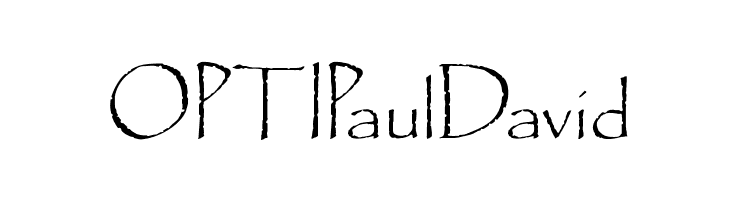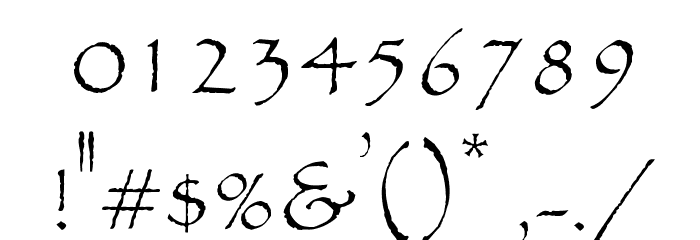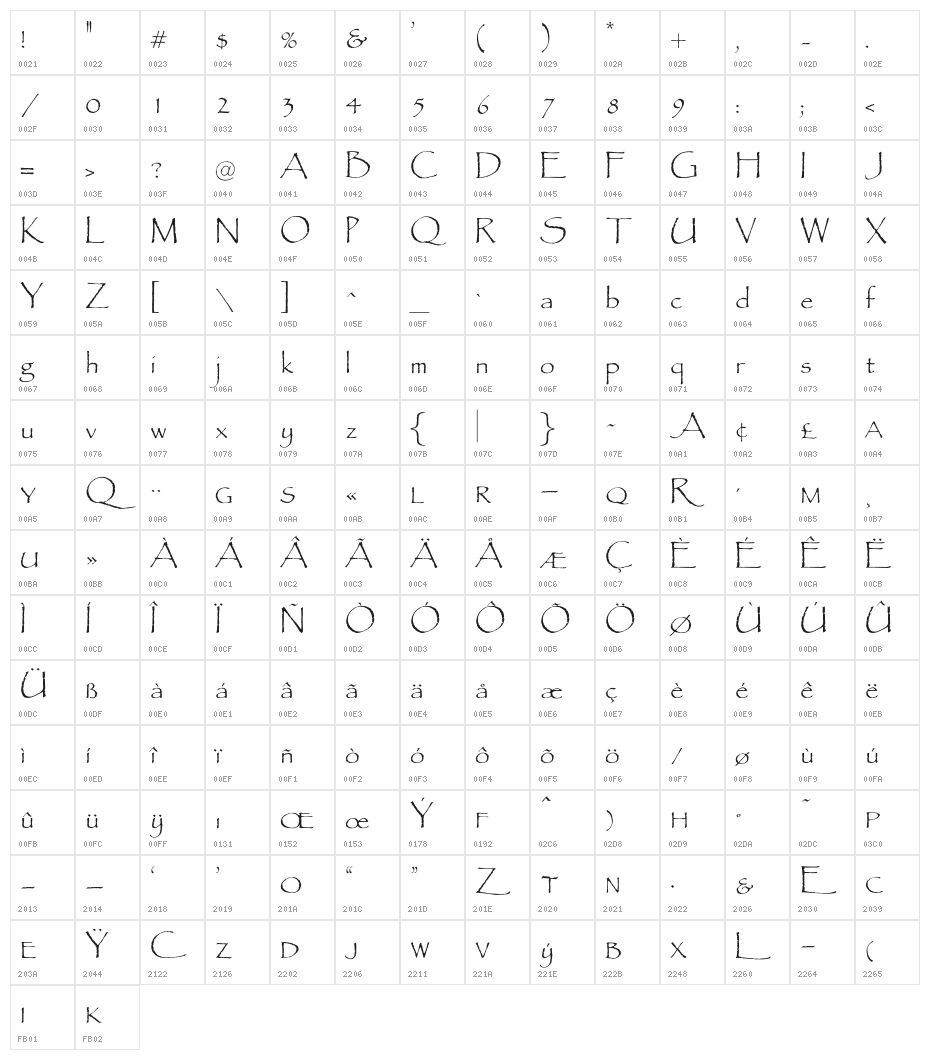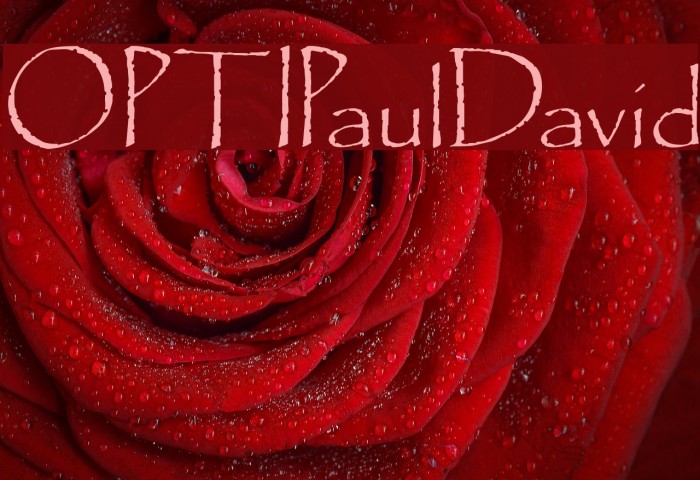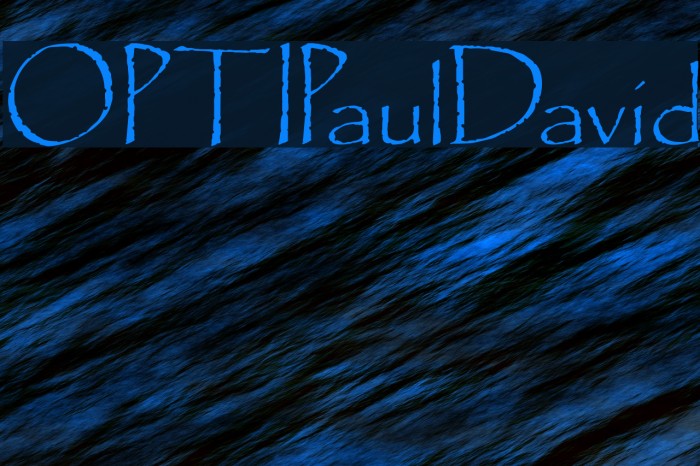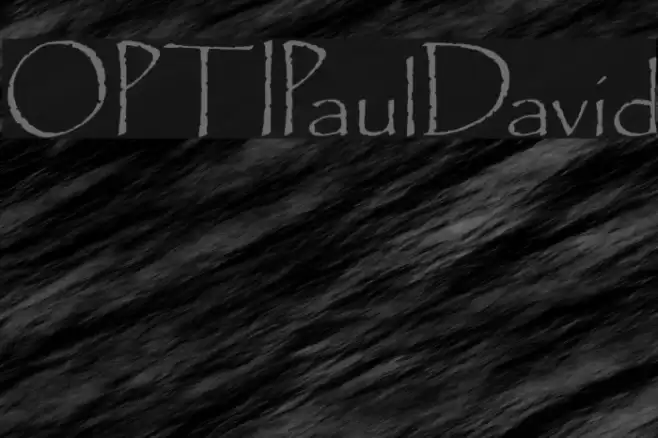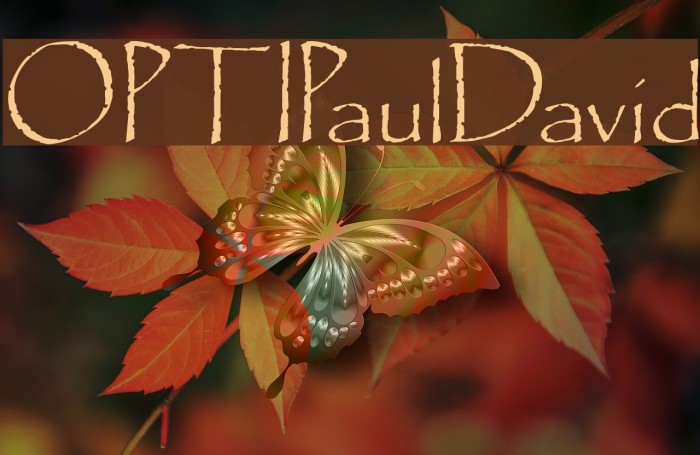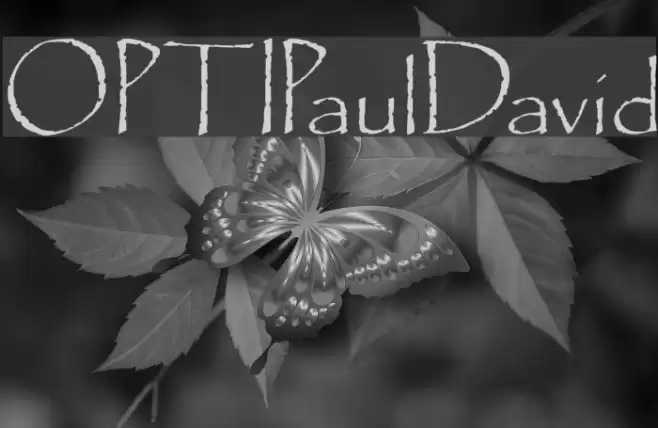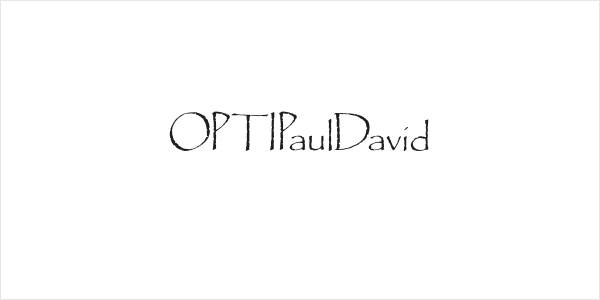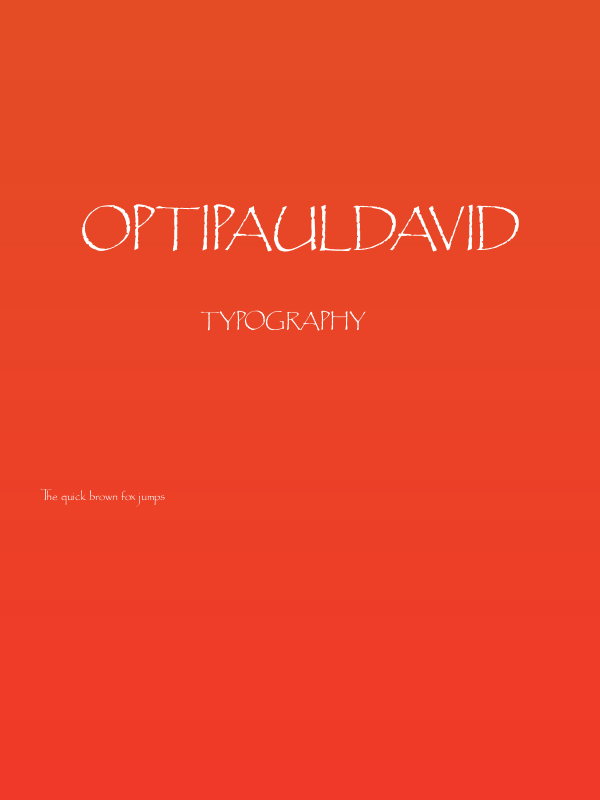
OPTIPaulDavid Font
OPTIPaulDavid Description
This font features a distinctive handwritten style with an elegant and slightly irregular stroke pattern, giving it a personal and artistic touch. The uppercase letters are tall and slender, with a slight tilt that adds a dynamic feel. The lowercase letters maintain a consistent flow, with some characters like 'g' and 'j' having unique descenders that enhance the font's charm. Numbers are crafted with the same attention to detail, ensuring readability while maintaining the font's artistic flair. Special characters are well-integrated, complementing the overall design. This font is perfect for projects that require a personal, artistic touch, such as invitations, greeting cards, or creative branding.
| Overall Style | Artistic, Personal |
| Use Case | Headlines, Creative projects, Artistic branding |
| Proposed Projects | Ideal for invitations, greeting cards, artistic branding, and creative projects. |